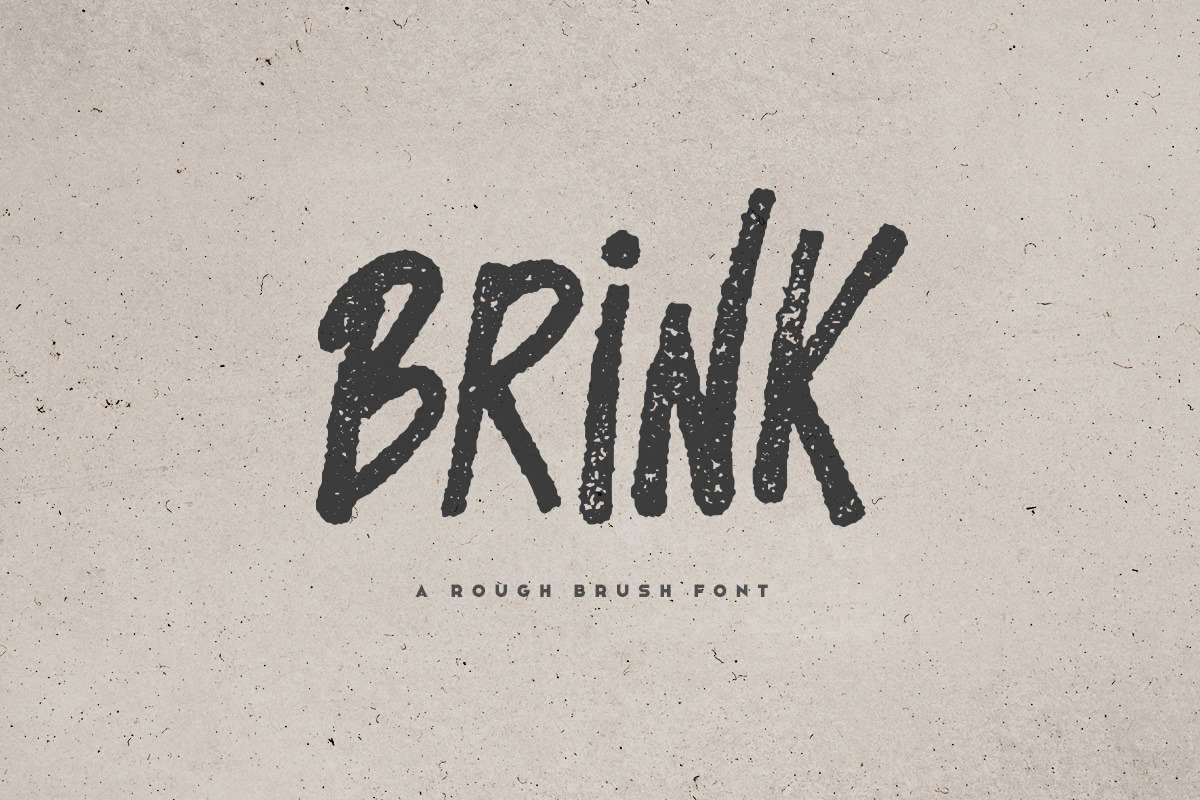
Brink - Brush Font
Brink is a rough brush font with alternate letters that can be toggled with caps lock. It includes multilingual uppercase letters, numbers and punctuation.